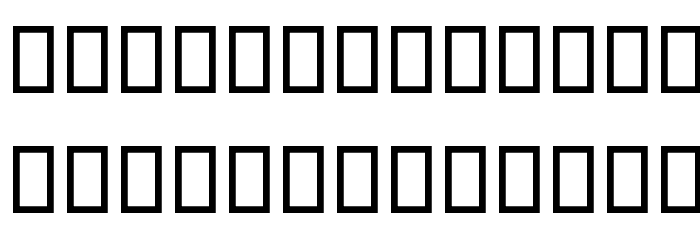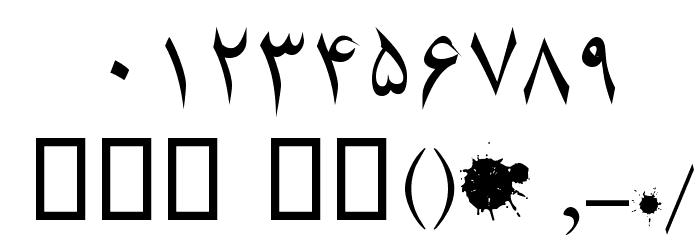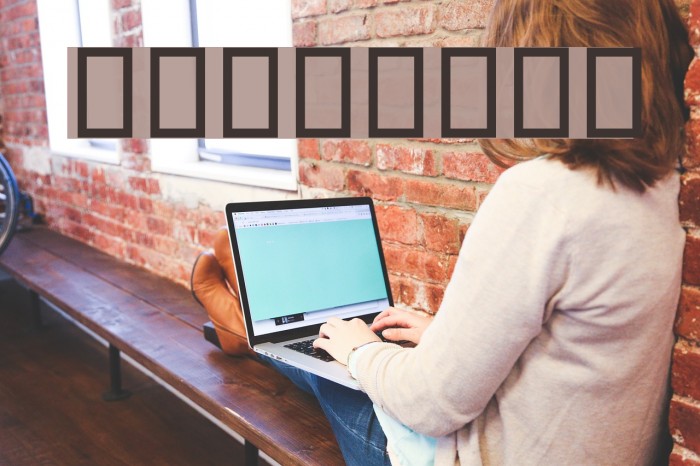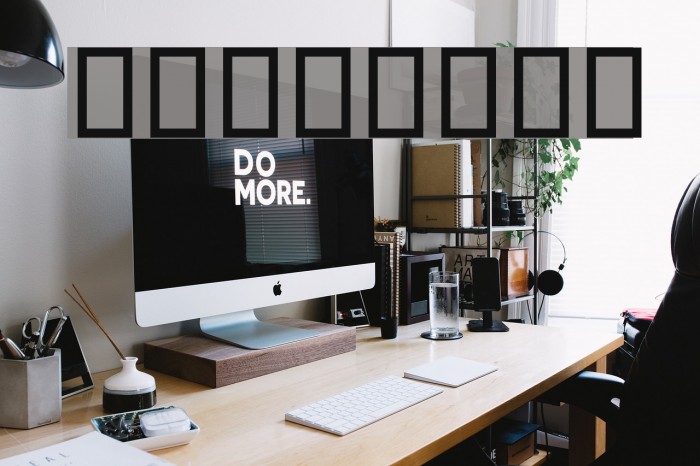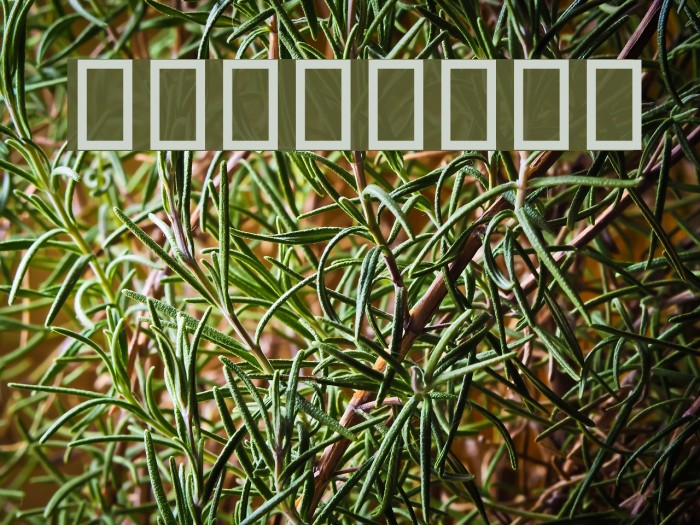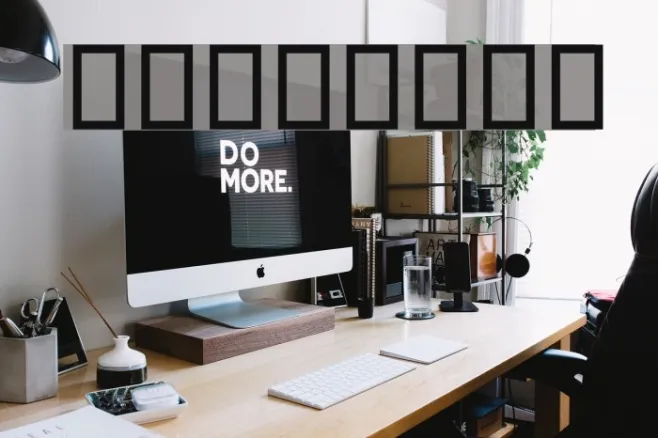
Karbalaa Font
This font features a unique and artistic style, characterized by its flowing and dynamic strokes. The numerals are particularly distinctive, with each digit exhibiting a calligraphic flair that suggests movement and elegance. The special characters, including punctuation marks, are designed with creative embellishments, adding to the font's overall artistic appeal. The font's style is reminiscent of traditional calligraphy, yet it maintains a modern twist, making it suitable for a variety of creative applications.
An artistic, calligraphic font with dynamic strokes and creative embellishments.
- Proposed Projects: Ideal for artistic projects, invitations, posters, and branding that require a touch of elegance and creativity.
- Use Case: Logos, Invitations, Posters